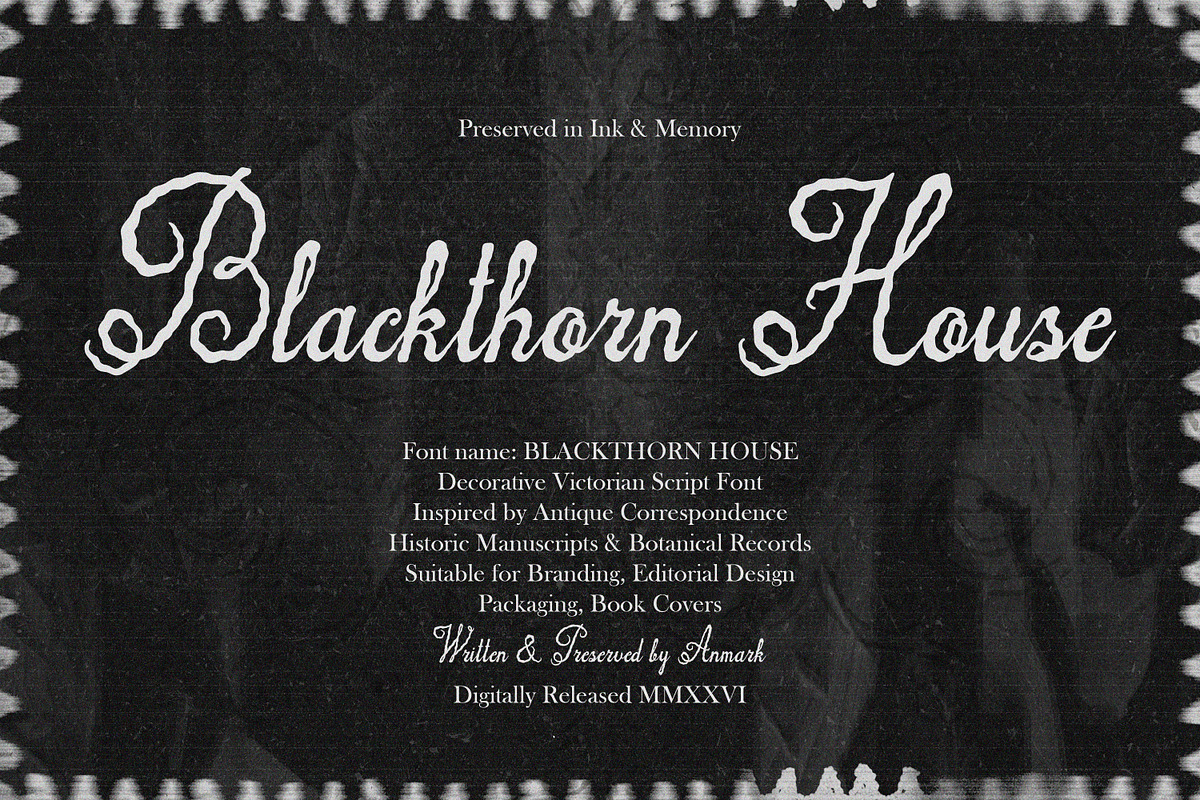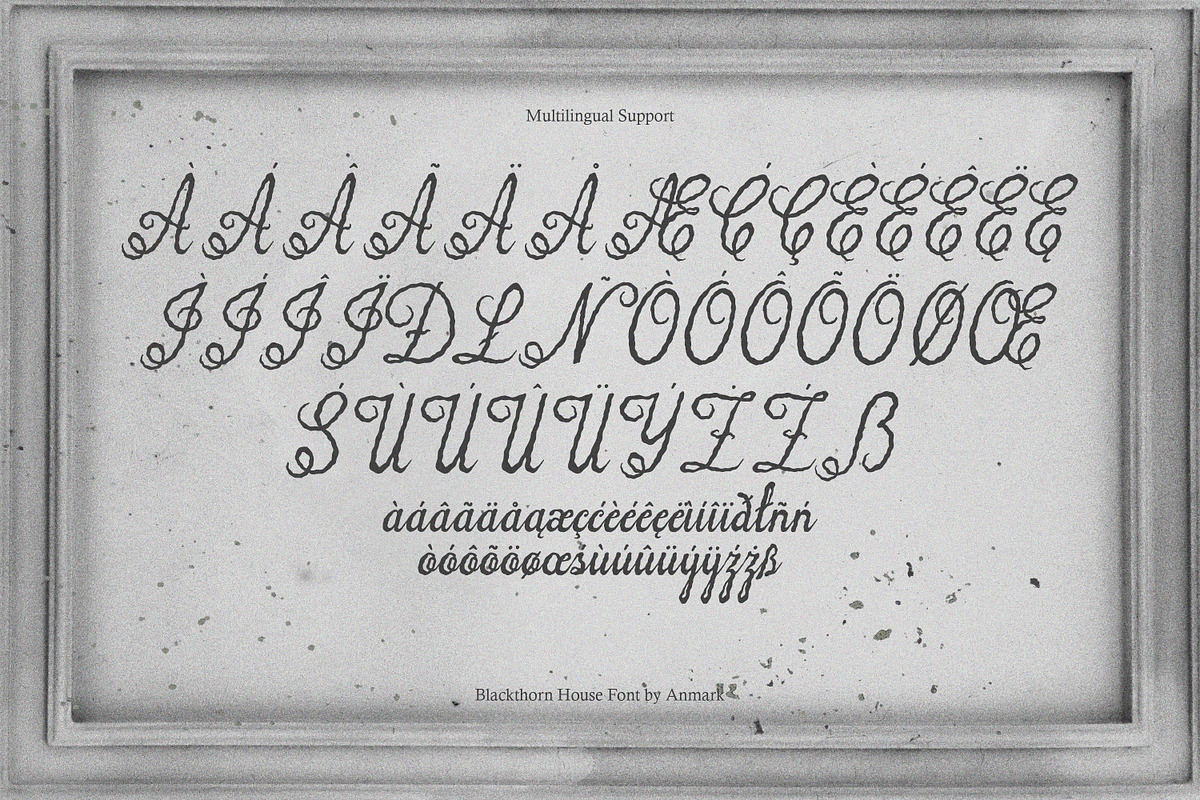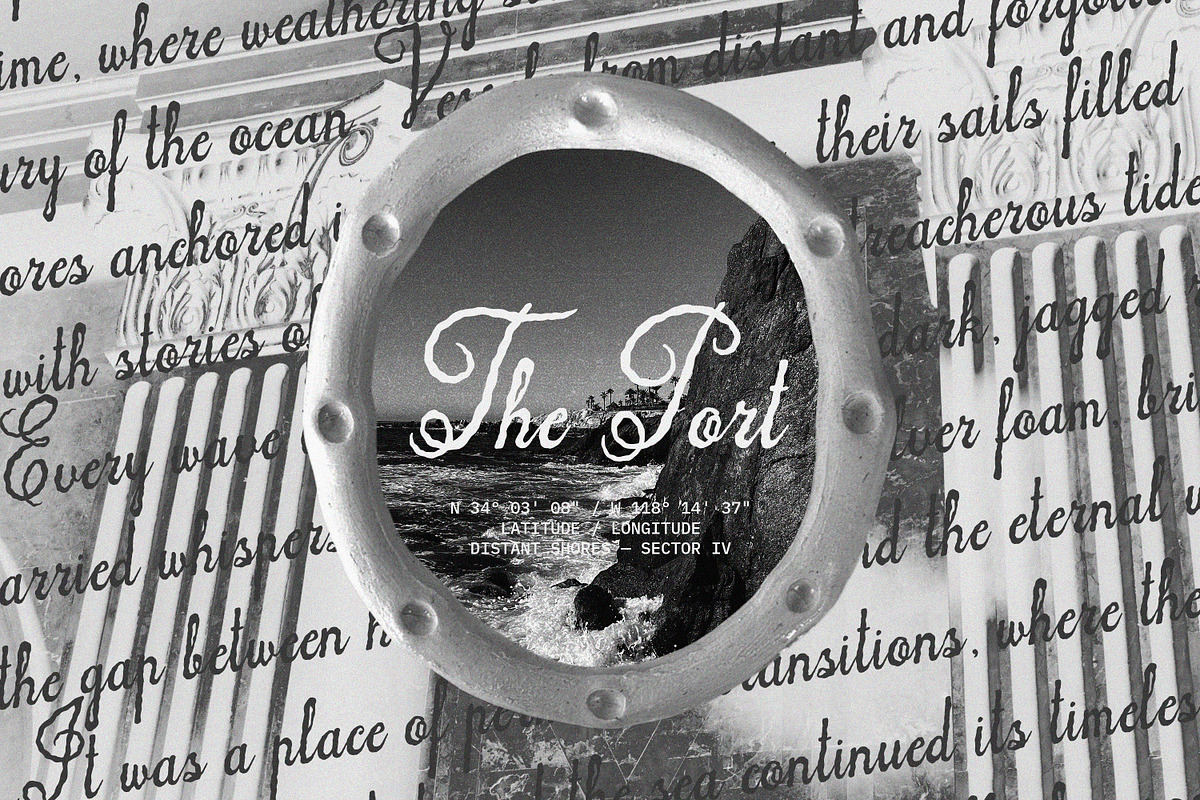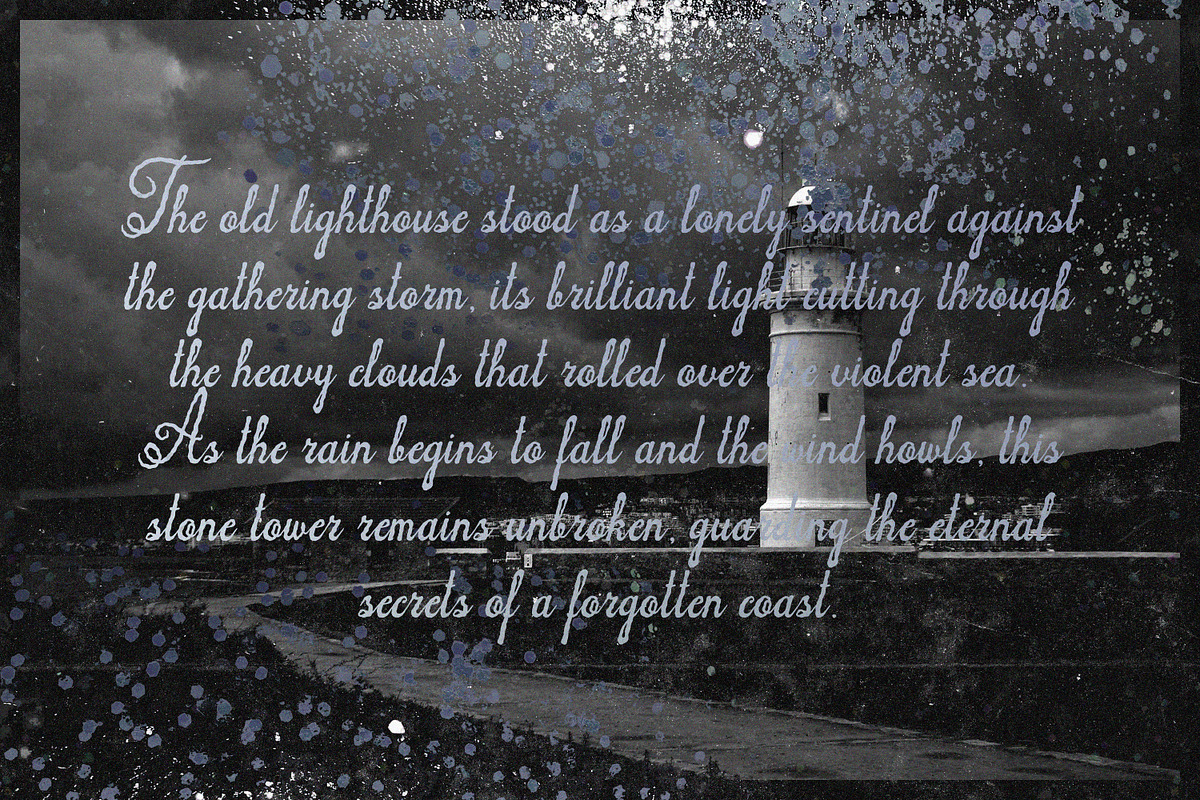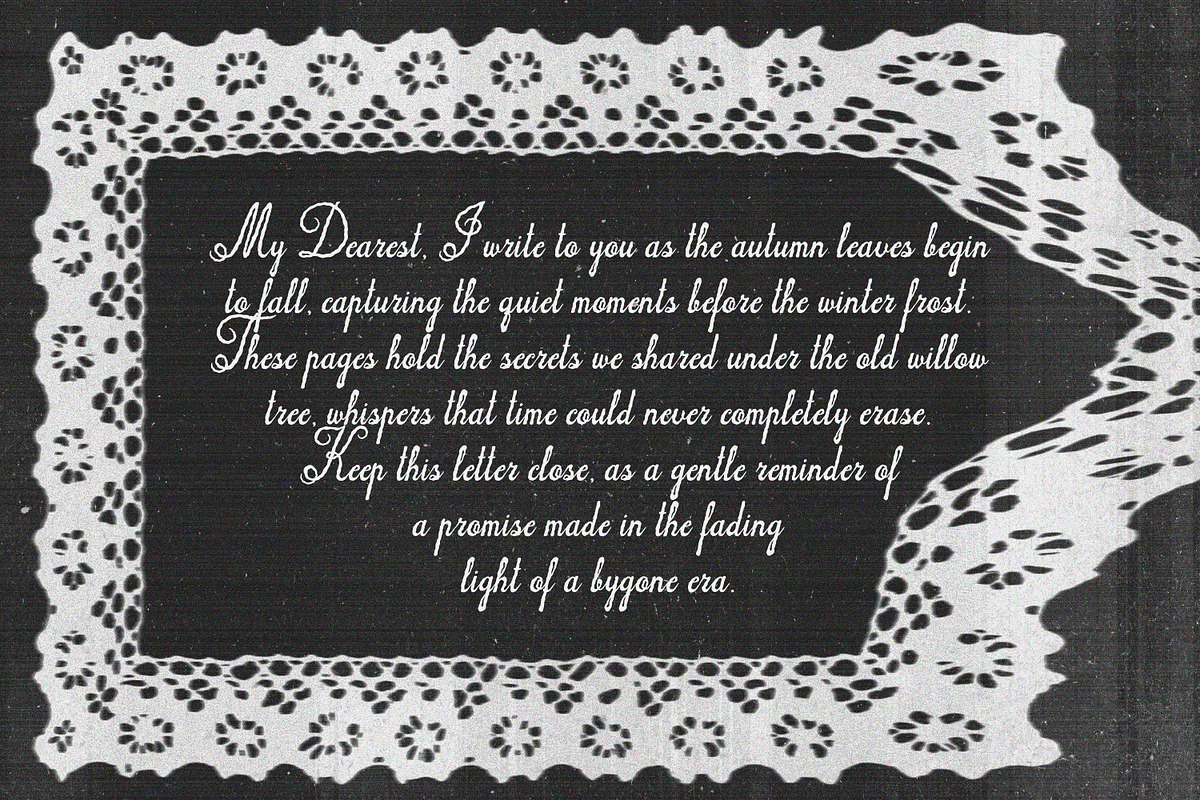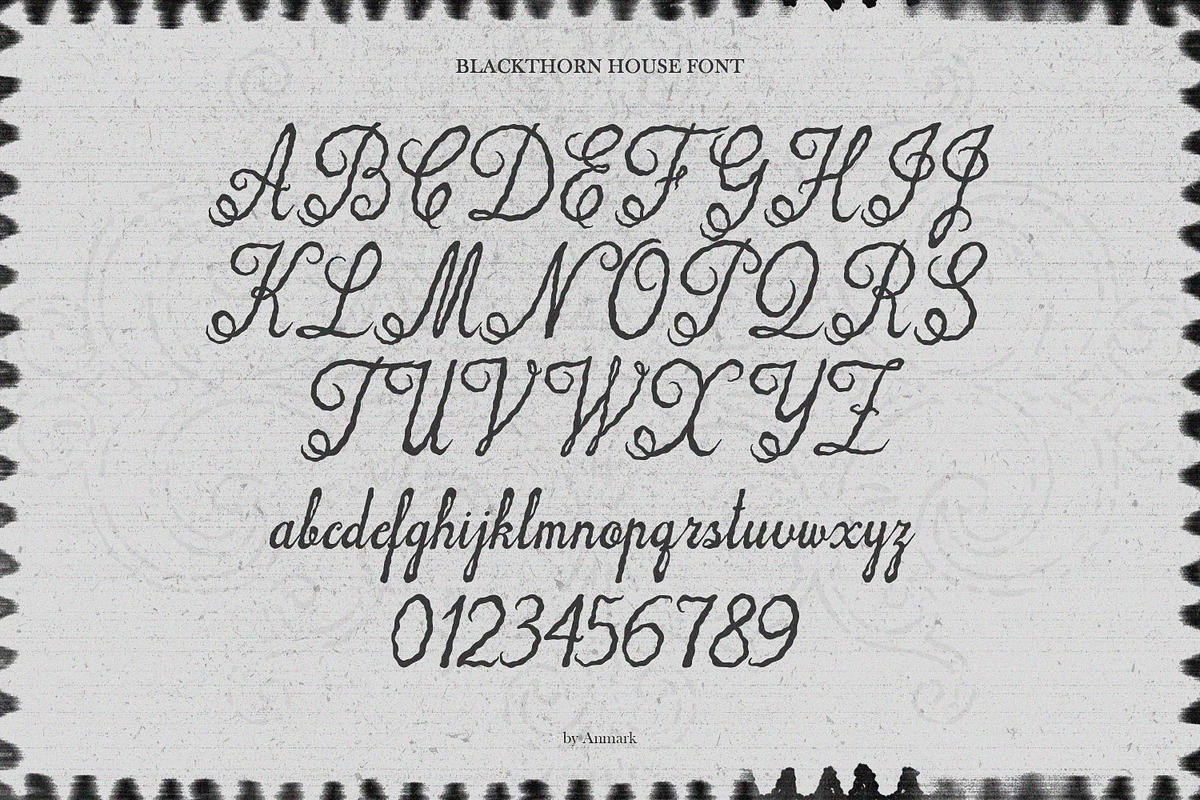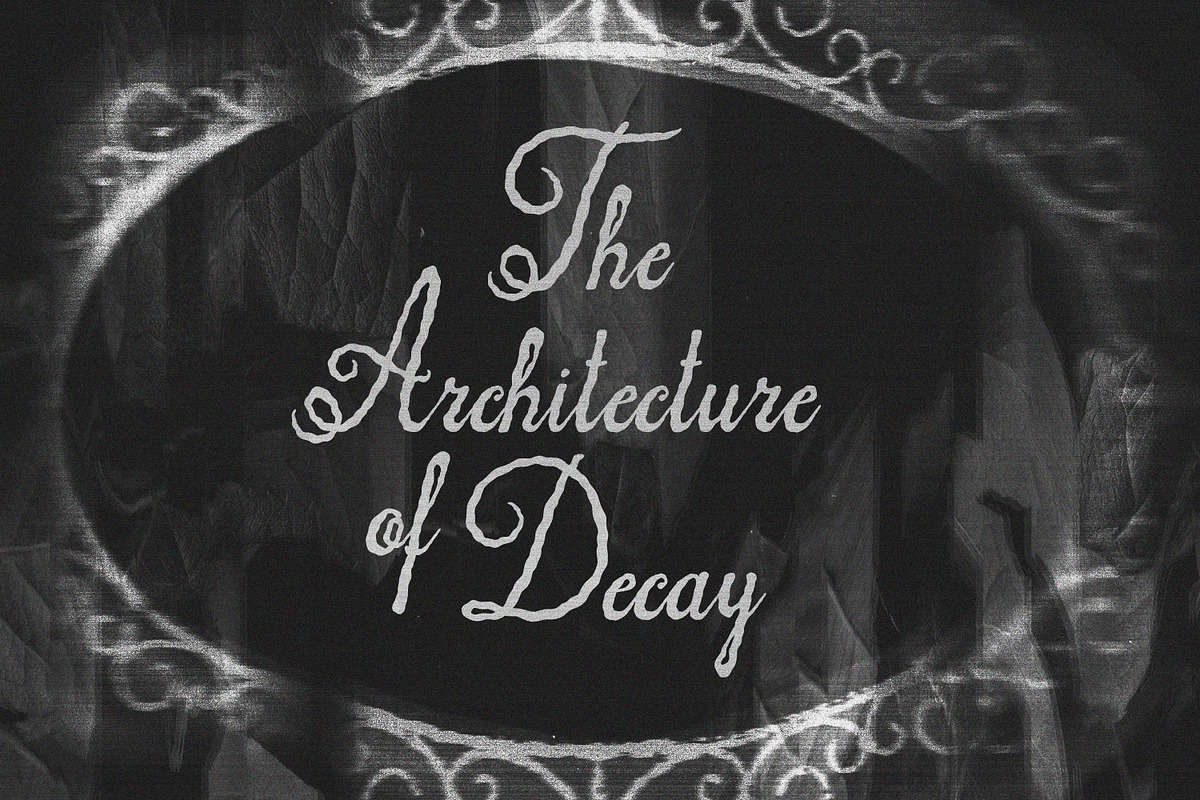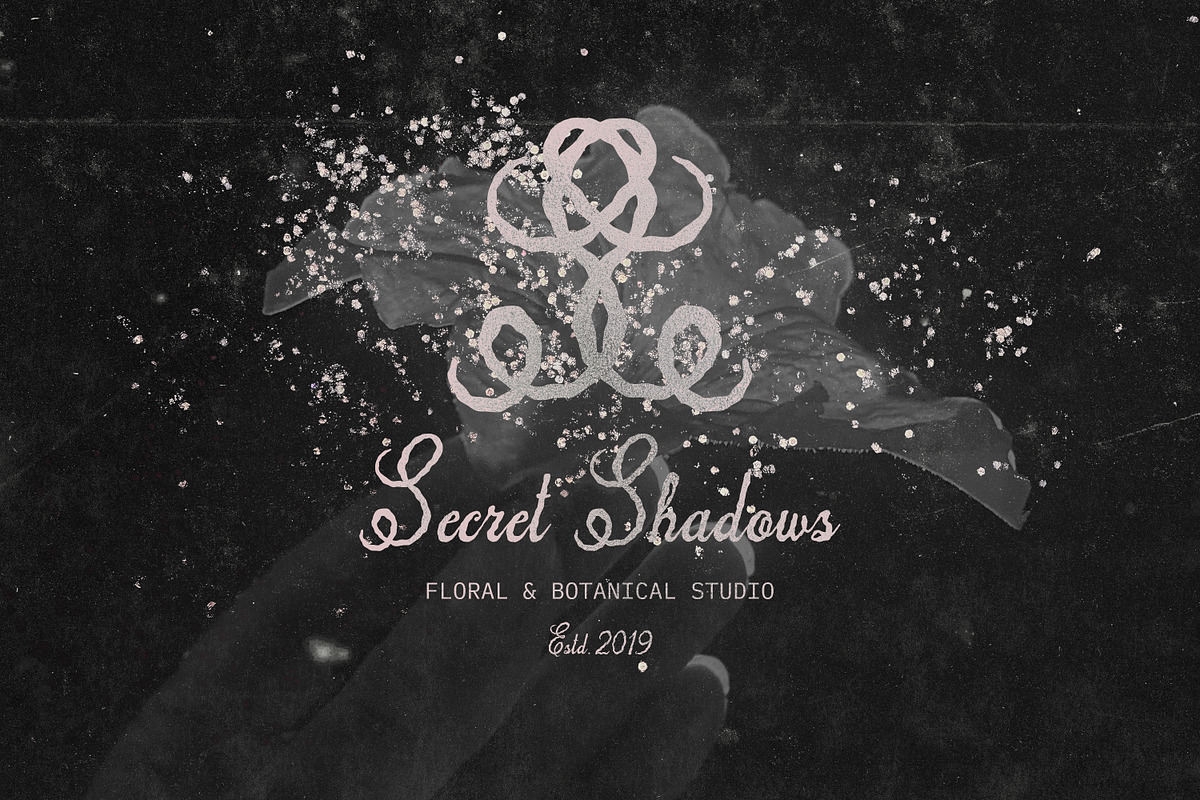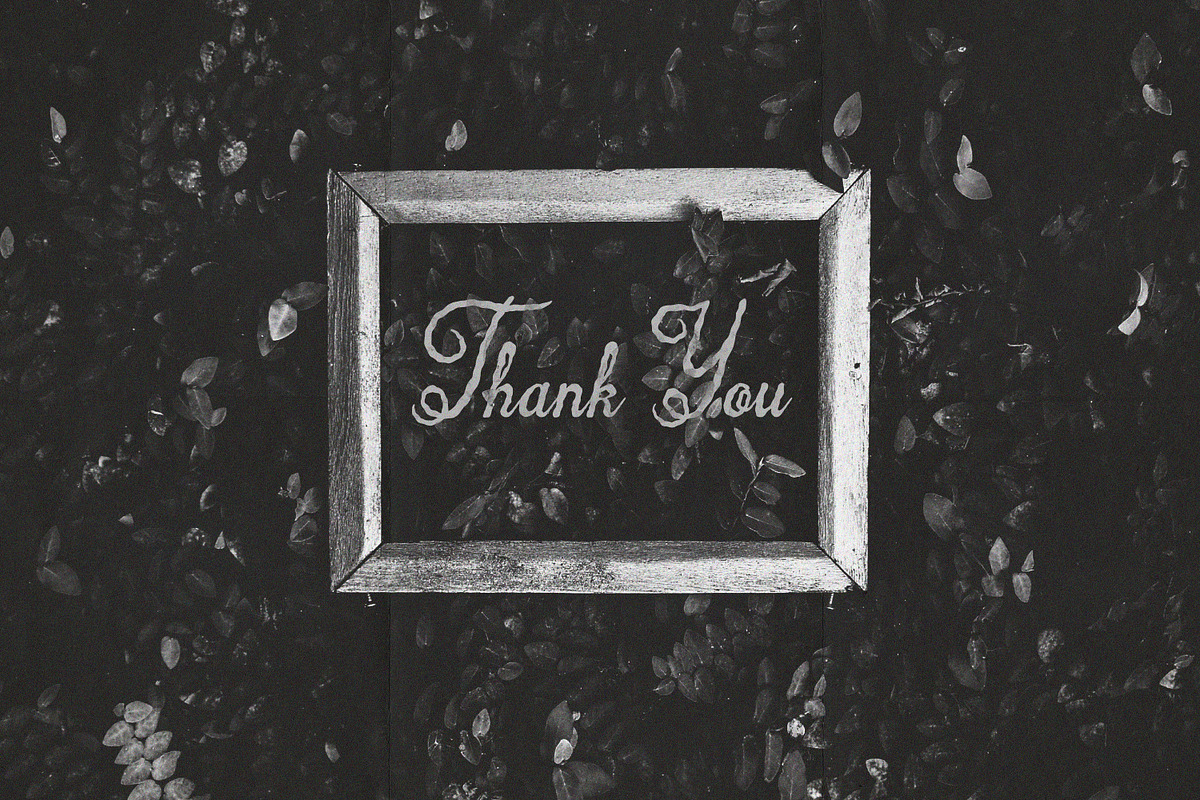
Blackthorn House Vintage Gothic Font
Blackthorn House is a decorative Victorian script that perfectly embodies the haunting elegance of dark romance and vintage mysticism. Inspired by antique correspondence, historic manuscripts, and botanical records, this typeface brings an authentic, ink-textured aesthetic to modern designs.
With its organic, slightly imperfect edges and majestic capital letters, Blackthorn House adds a touch of timeless poetry, historic charm, and dramatic rhythm to any creative project.
High-End Branding & Logos: Create unforgettable visual identities for boutique brands, perfume labels, wine bottles, and apothecary shops.
Thematic Wedding Stationery: Design elegant invitations, RSVP cards, and envelopes with a gothic romance or cottagecore aesthetic.
Book Covers & Editorial Design: Ideal for Dark Academia novels, fantasy book titles, gothic poetry, and historical magazine layouts.
Packaging Design: Elevate craft product packaging, tea tins, and luxury merchandise.
Full set of uppercase and lowercase letters, numbers, and core punctuation.
Extensive Multilingual Support: Includes Western, Central, and South European language glyphs (French, German, Spanish, Italian, Portuguese, and more).